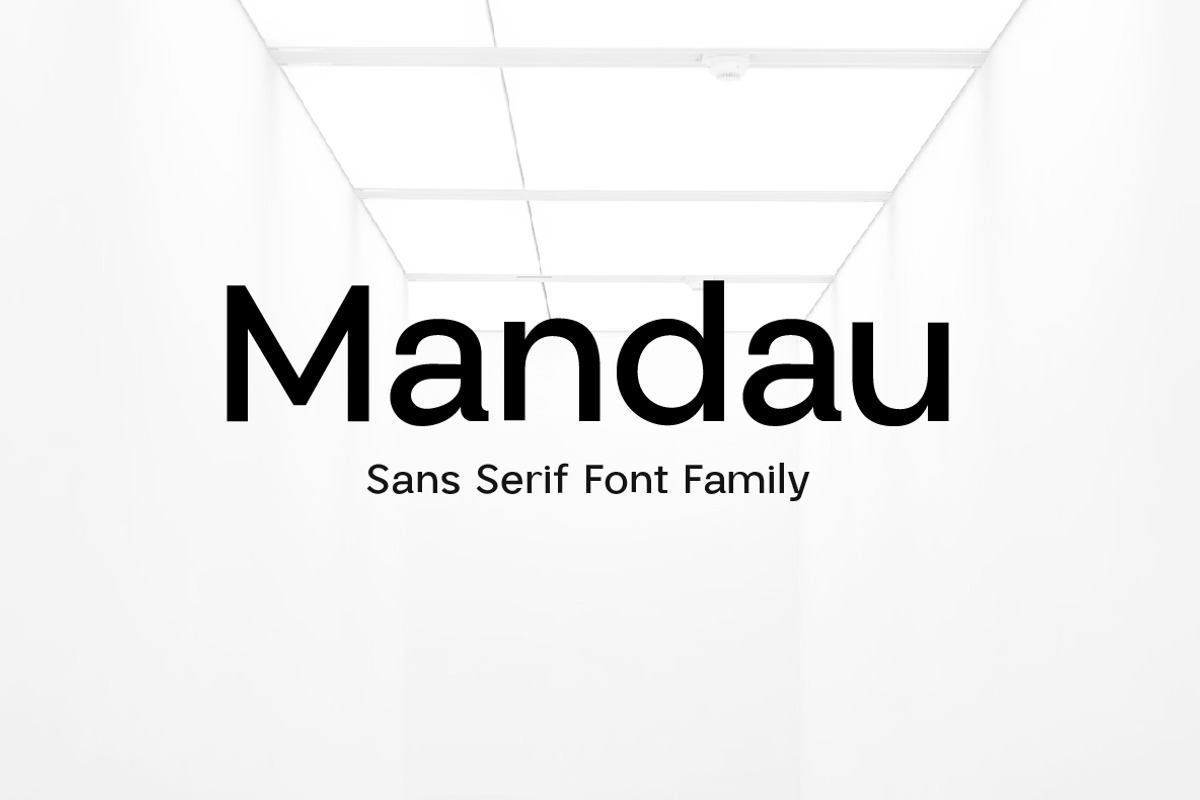
Mandau Sans Serif Font Family Free Download is a modern and minimalist typeface inspired by 20th-century typography styles. Designed by Yukita Creative, it features clean, bold lines and geometric letter shapes, making it highly readable and suitable for various graphic design purposes. The font's monochromatic color scheme complements minimalist and contemporary designs, providing a professional and elegant impression. You can download Mandau Sans Serif Font Family Free Download for personal use to explore its features. For commercial applications, please ensure you purchase the appropriate license to comply with usage rights.